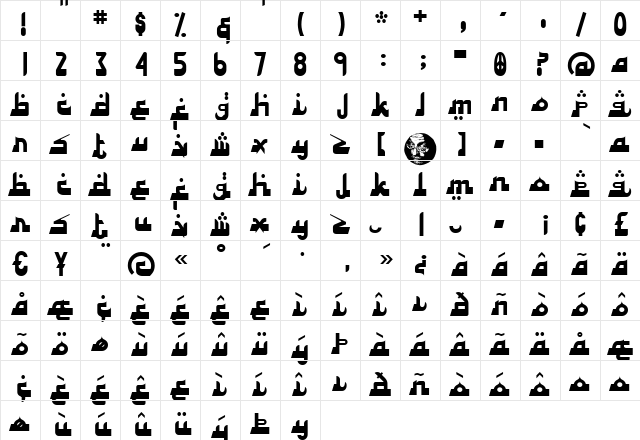
Alhambra Deep Regular Font Preview
Alhambra Deep Regular
Alhambra Deep Regular Font Details
Design Context for Alhambra Deep Typeface
Alhambra Deep is a composed and adaptable typeface that performs quietly and consistently across a wide range of design contexts.